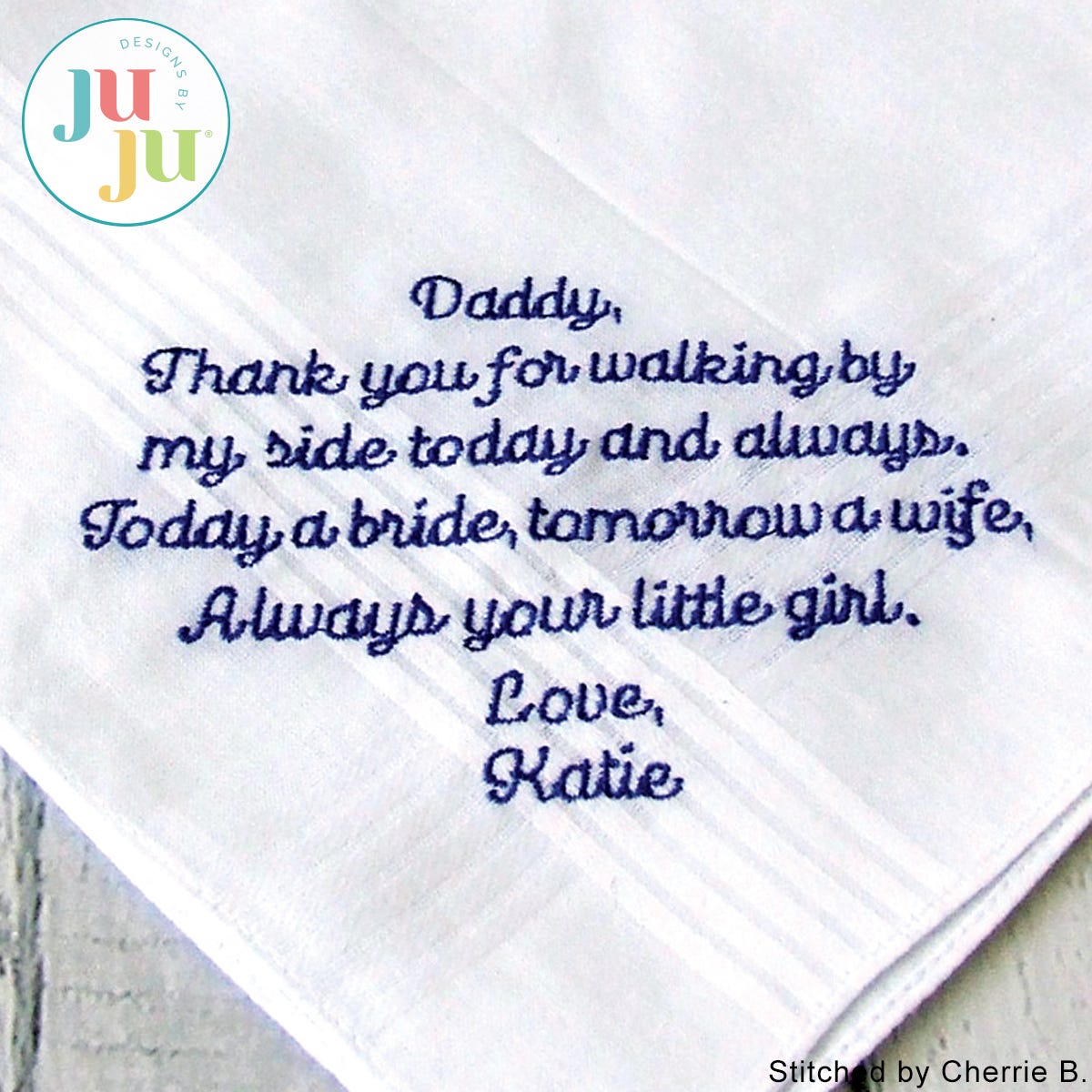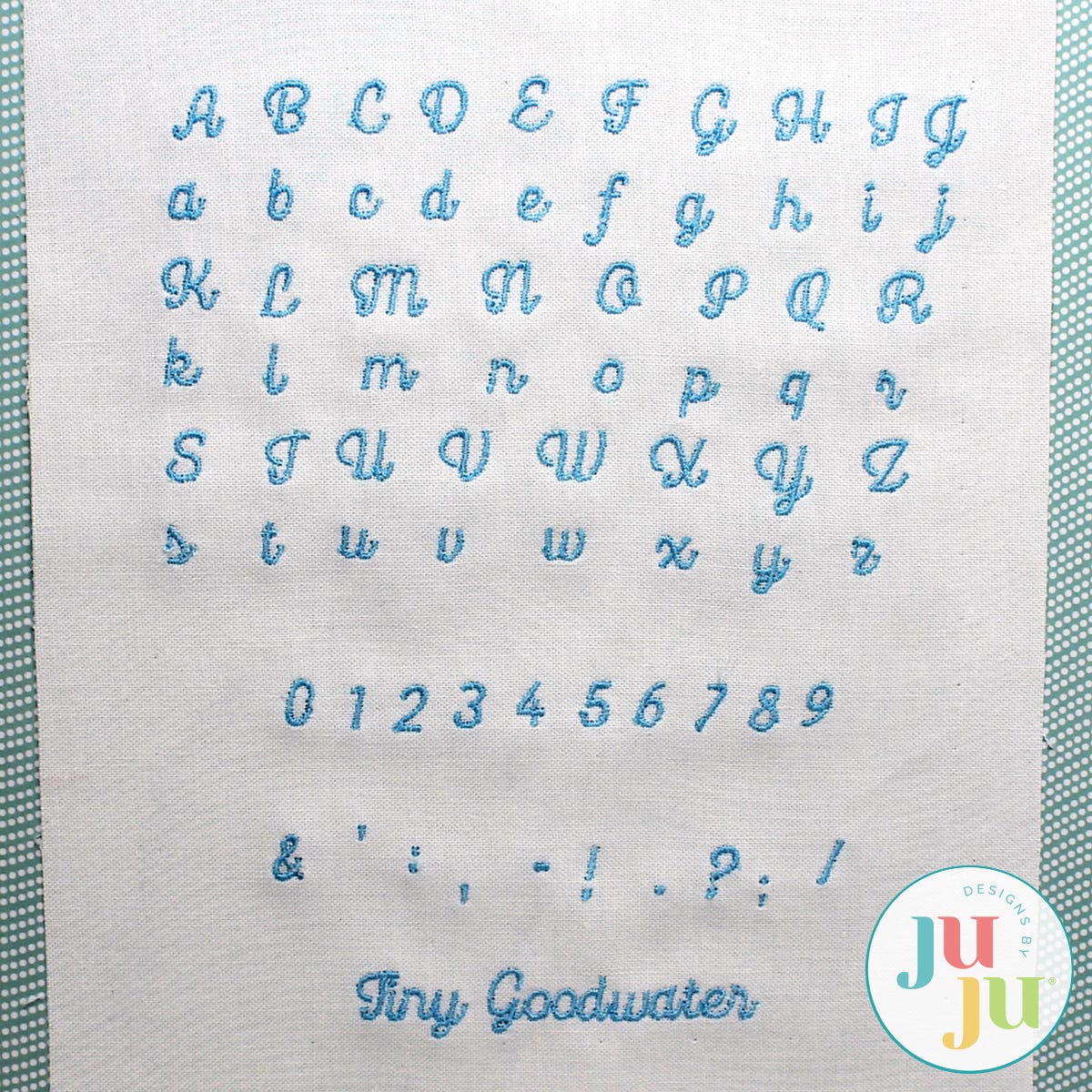
Goodwater Satin Stitch Embroidery Font by Oma's Place
This very small font was entirely digitized manually to ensure perfect start and ending of each letter. Each letter starts on the left and ends on the right. For optimal stitchout, this font should be stitched with a 65/9 or 60/8 needle and with 60 wt thread. Despite its smallness, the font is very readable. Tips on how to stitch perfect small lettering are part of your download. Great for heirloom stitching or for wedding hankies.
Size and Stitch Counts
Capital letter A 0.31"x0.30" (7.86x7.50 mm)
128 stitches
Lower case a 0.22x0.22" (5.50x5.56 mm)
98 stitches